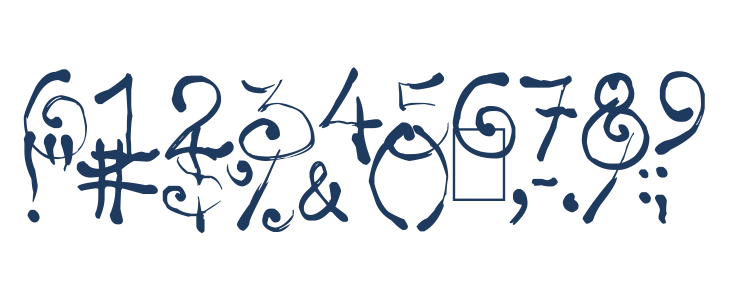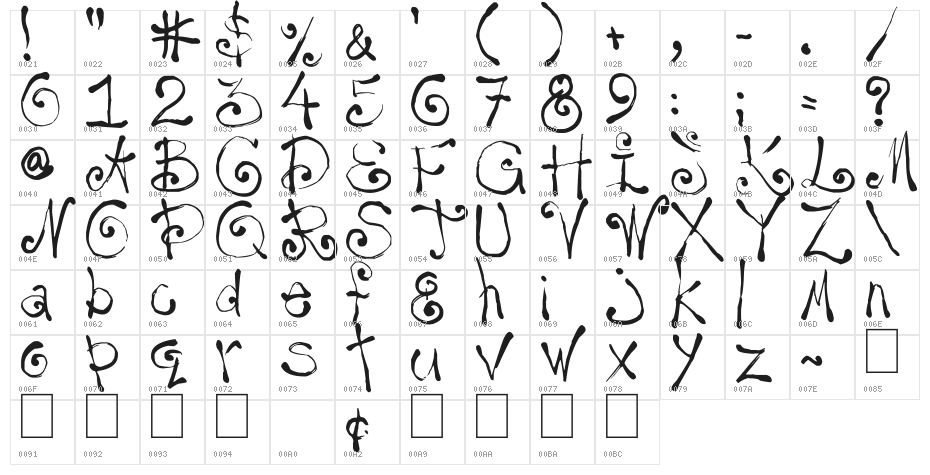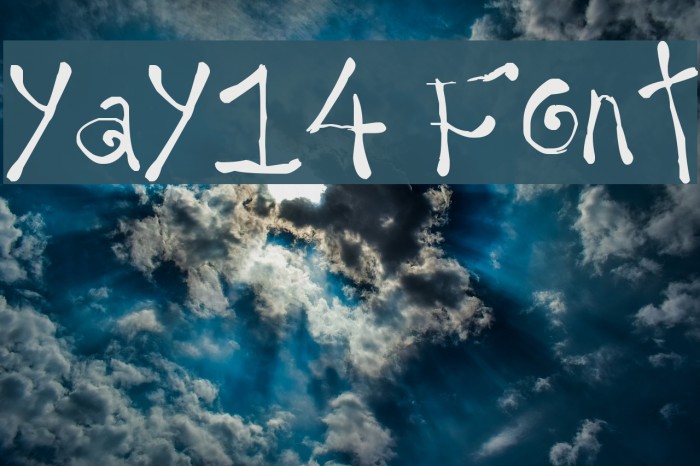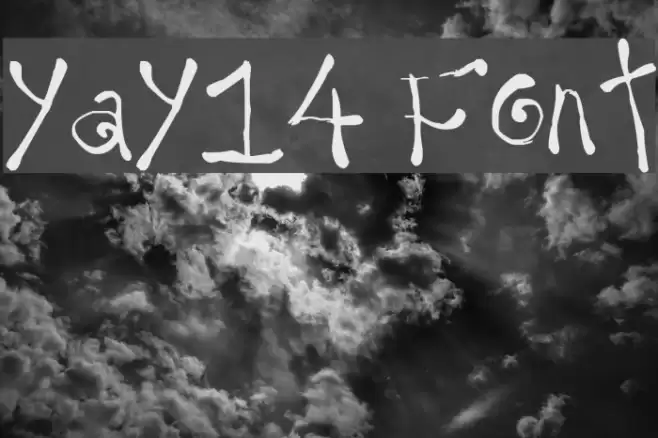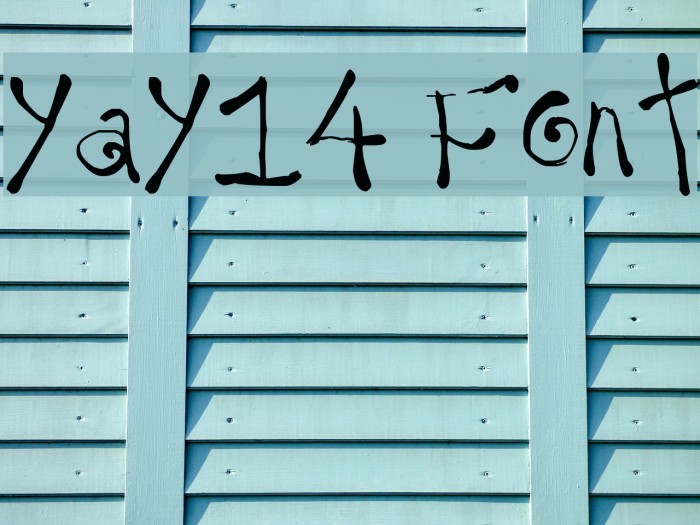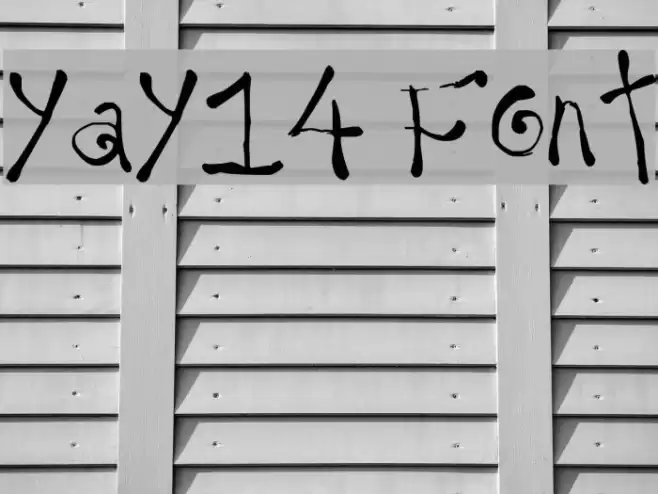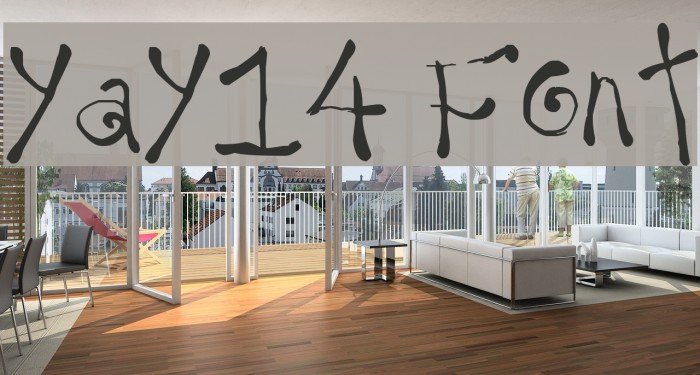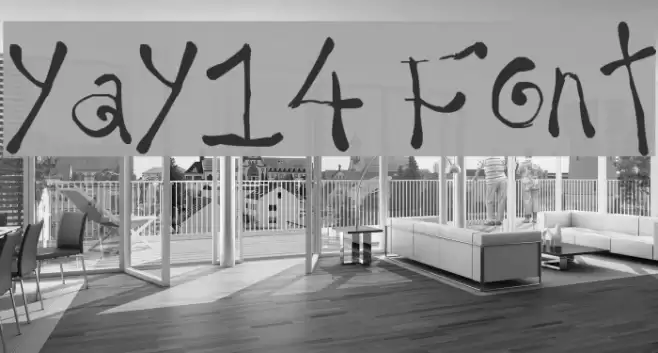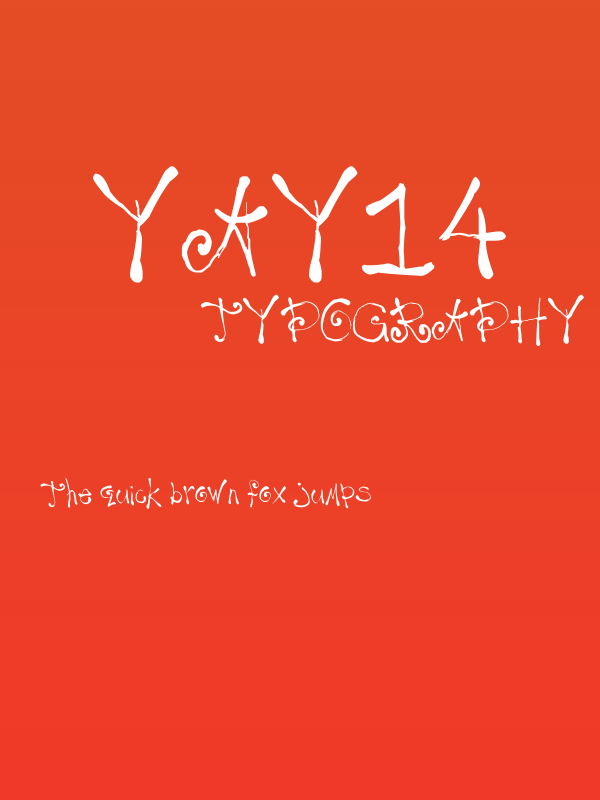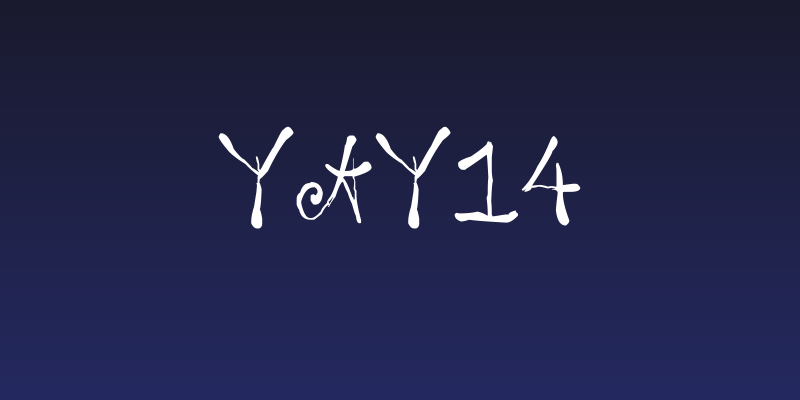
yay14 Font
yay14 Description
This font features a whimsical and playful design, characterized by its curly and exaggerated letterforms. The uppercase and lowercase letters exhibit a unique blend of loops and swirls, giving it a hand-drawn, artistic feel. The numbers and special characters maintain this playful style, making the font suitable for creative and informal applications. Its distinct style is reminiscent of a fairy tale or fantasy theme, with each character appearing as if it were crafted with a flourish of a pen. The font's overall appearance is both decorative and expressive, making it ideal for projects that require a touch of whimsy and creativity.
| Proposed Projects | Ideal for children's book covers, fantasy-themed invitations, playful branding, and creative posters. |